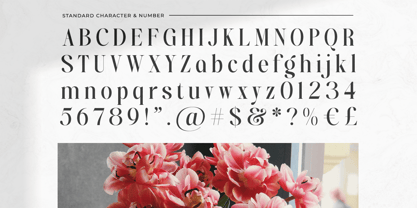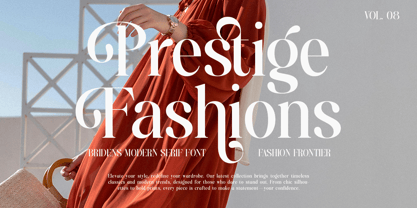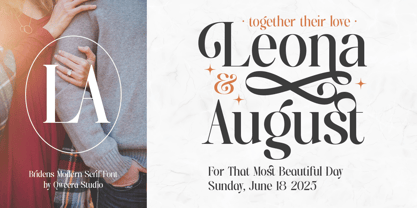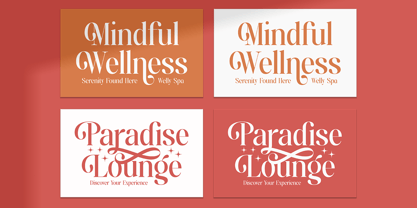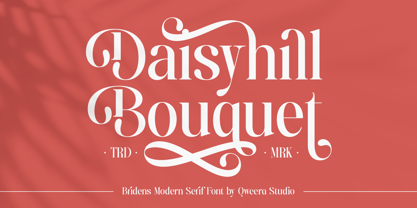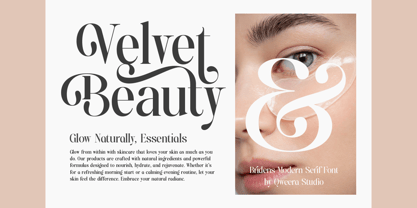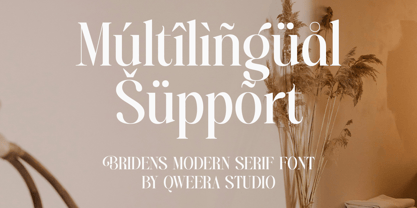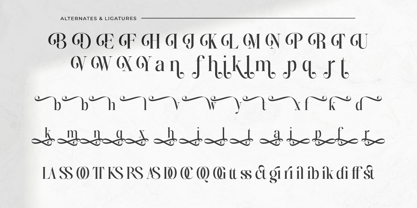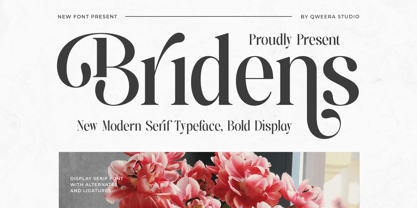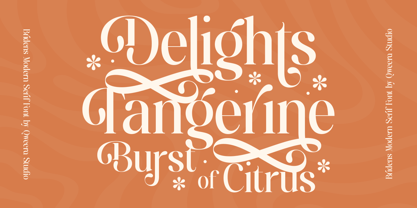
Bridens
by Qweera Studio
The Bridens Font Family was designed by Idhham Cholid Rikzano Yahya and published by Qweera Studio. Bridens contains 2 styles and family package options.
Introducing Bridens, a modern serif display font that exudes sophistication and style. Available in both Regular and Italic versions, Bridens offers a wide range of creative possibilities with its stylish alternates and ligatures. Perfectly suited for branding, editorial design, web typography, or any creative project that demands a bold, elegant touch. Bridens is the ultimate choice for making your designs stand out while maintaining a timeless appeal. Unleash your creativity with this versatile and modern typeface.
• Regular & Italic
• All Multilingual symbol
• Opentype features ( ligature, alternate )